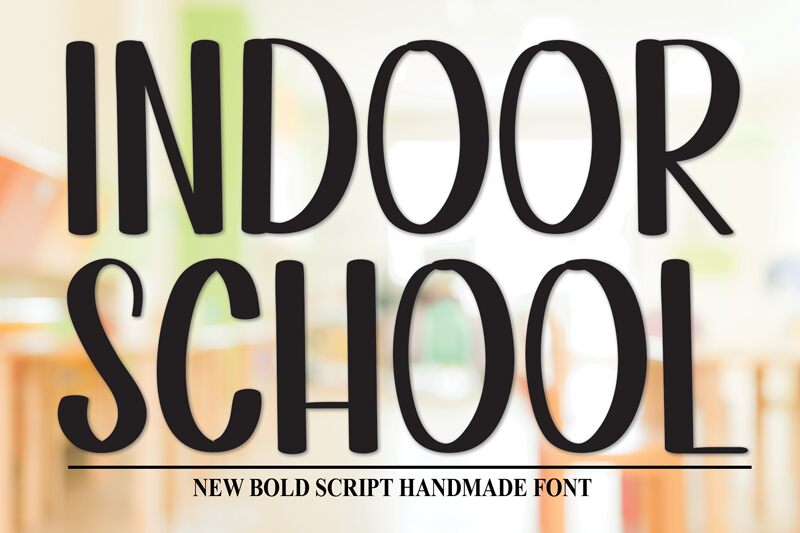
Indoor School
Indoor School, crafted by Scratchones, carries the charm of a handwritten touch with a personal and intimate feel. Its condensed form adds a cozy, familiar vibe—like notes passed between friends in the back of class or scribbles in the margin of a well-loved book. The font exhibits an informal yet endearing aesthetic that makes it perfect for projects aiming to evoke warmth and nostalgia.
Ideal for invitations, greeting cards, and personal blogs, Indoor School could also lend its quaint appeal to educational materials or boutique branding where a touch of whimsy is desired. This font's personable nature invites readers into a world that's both approachable and delightfully engaging.